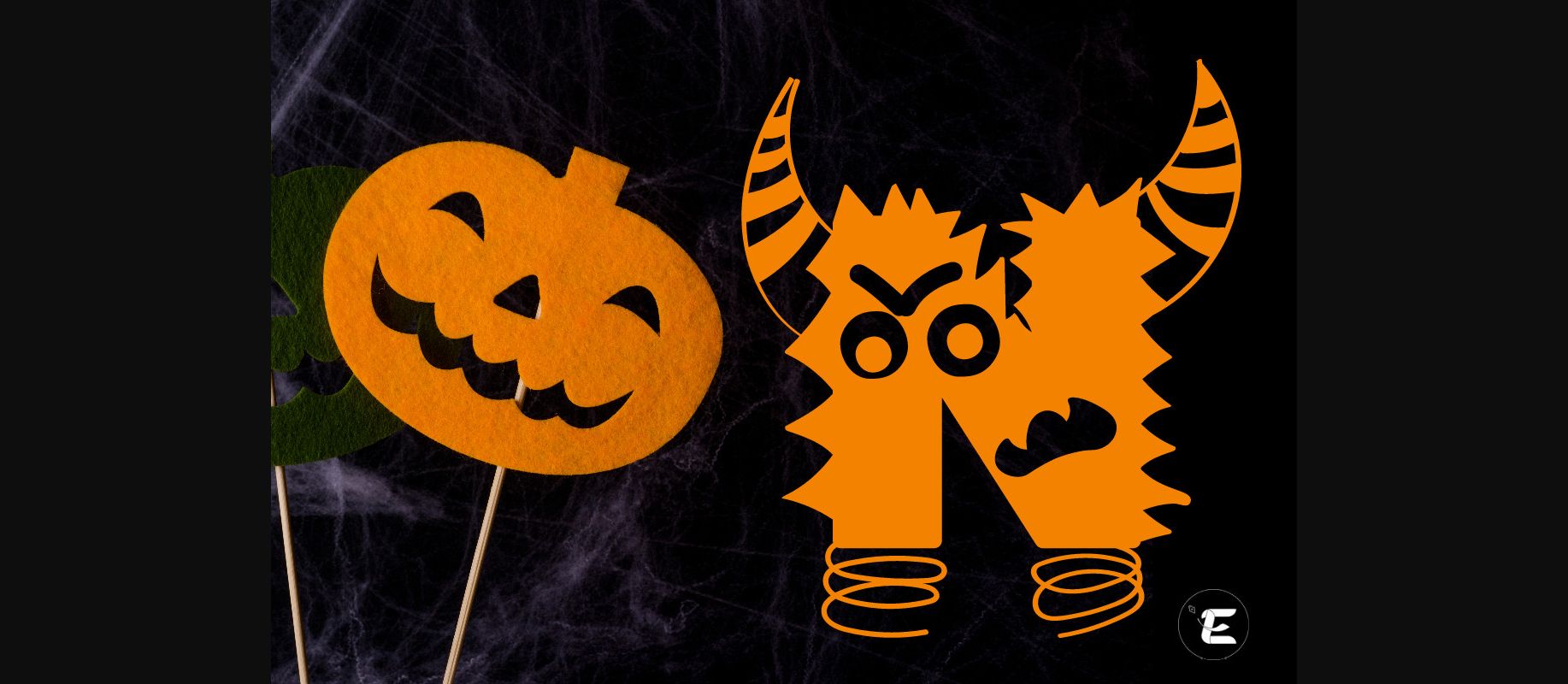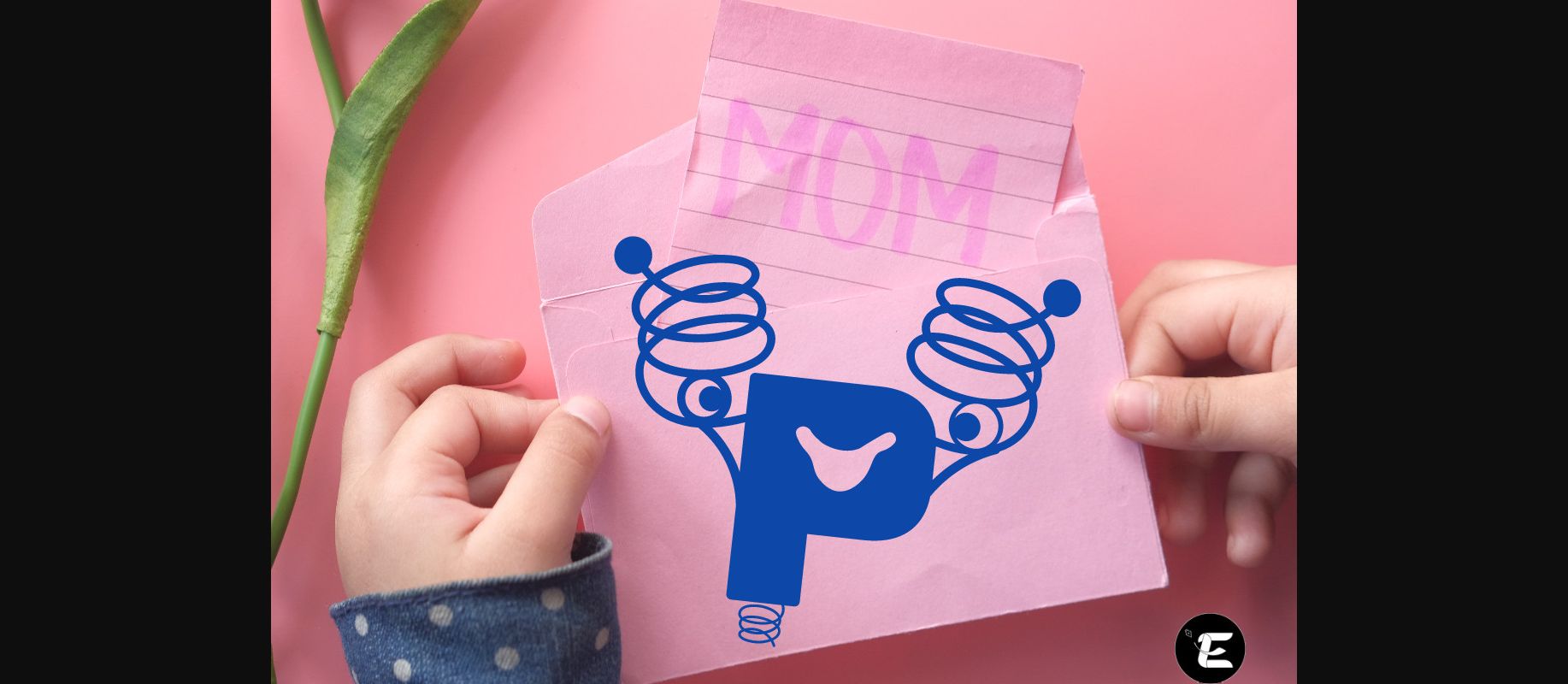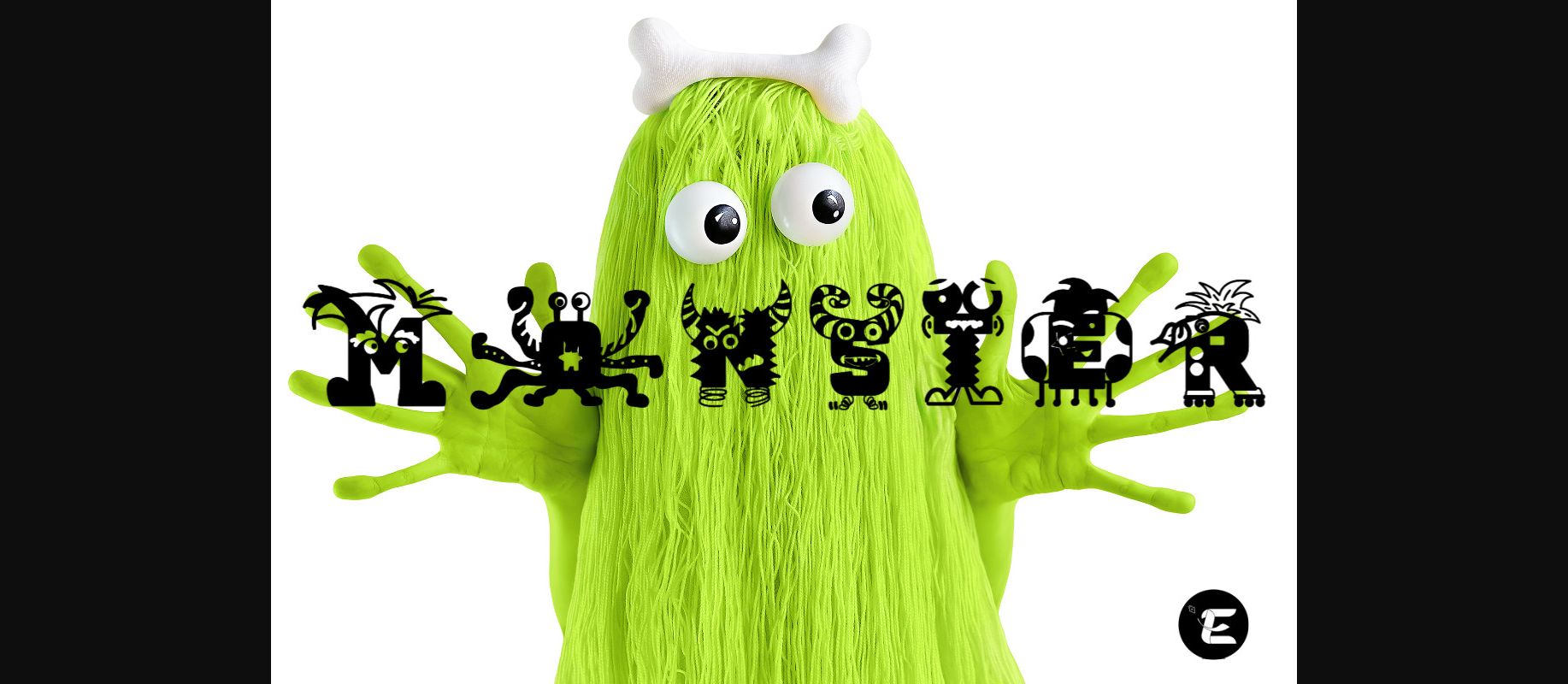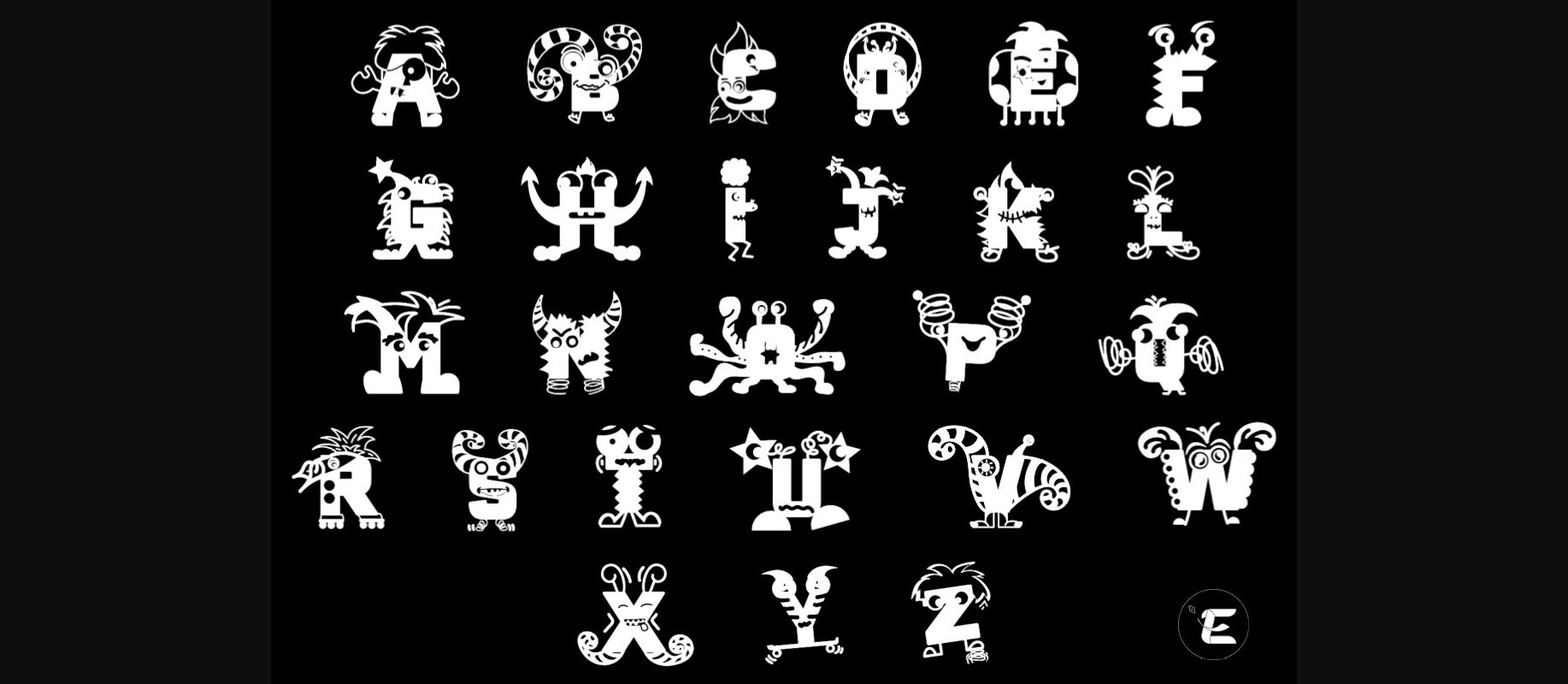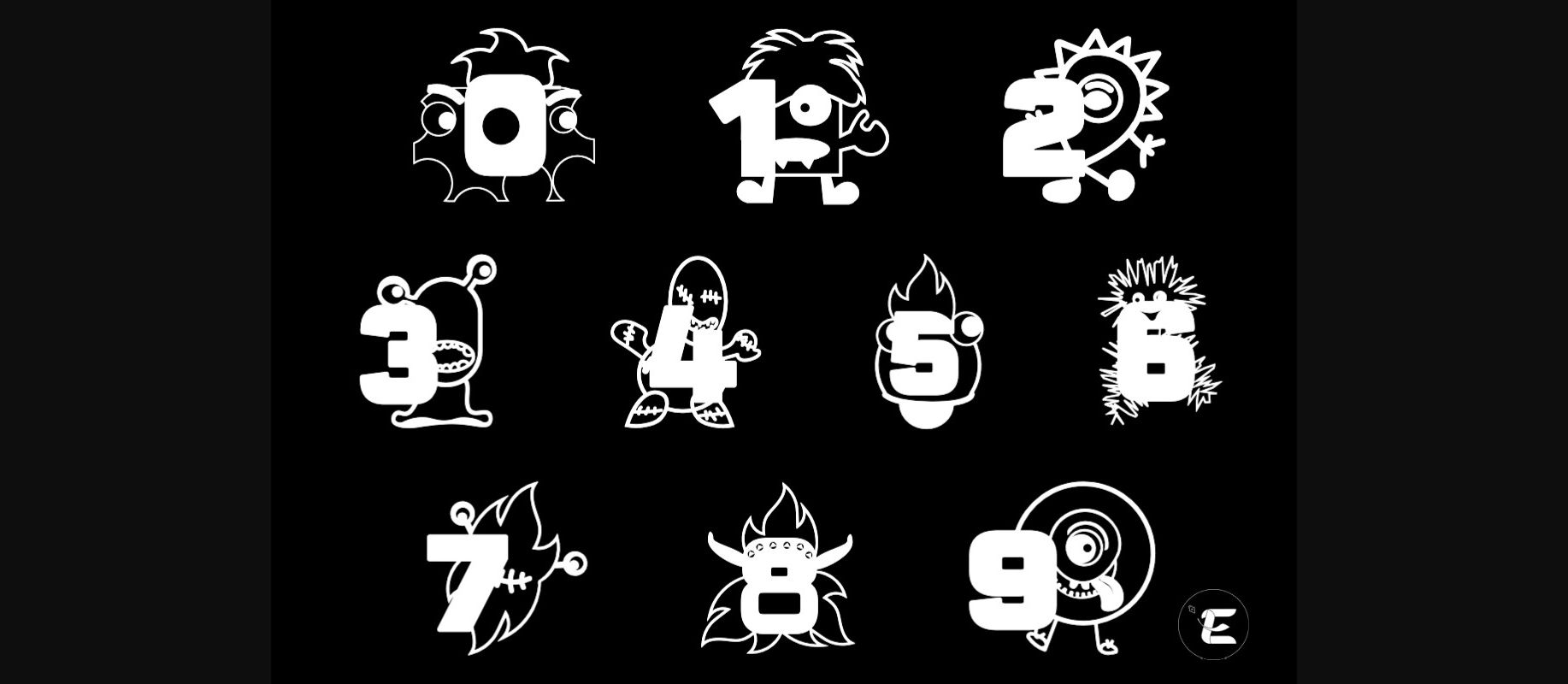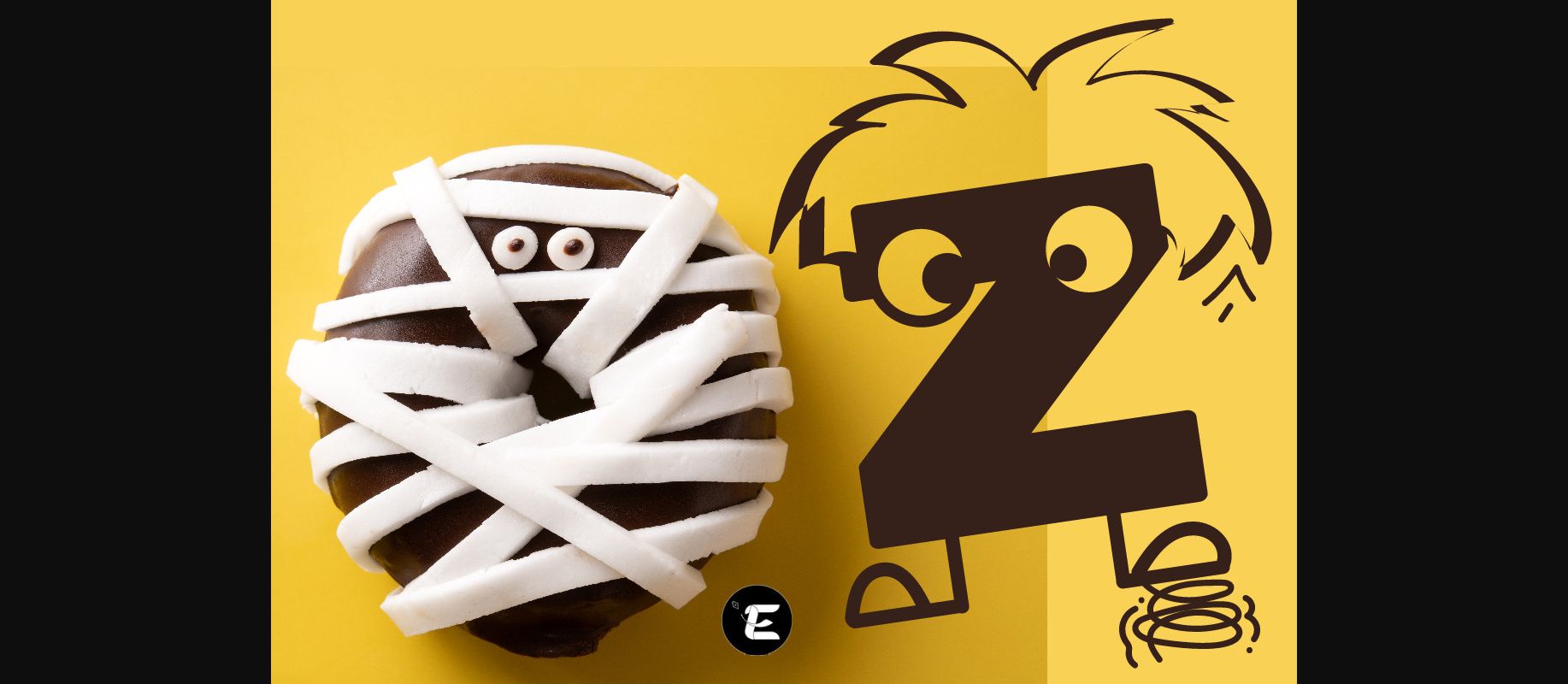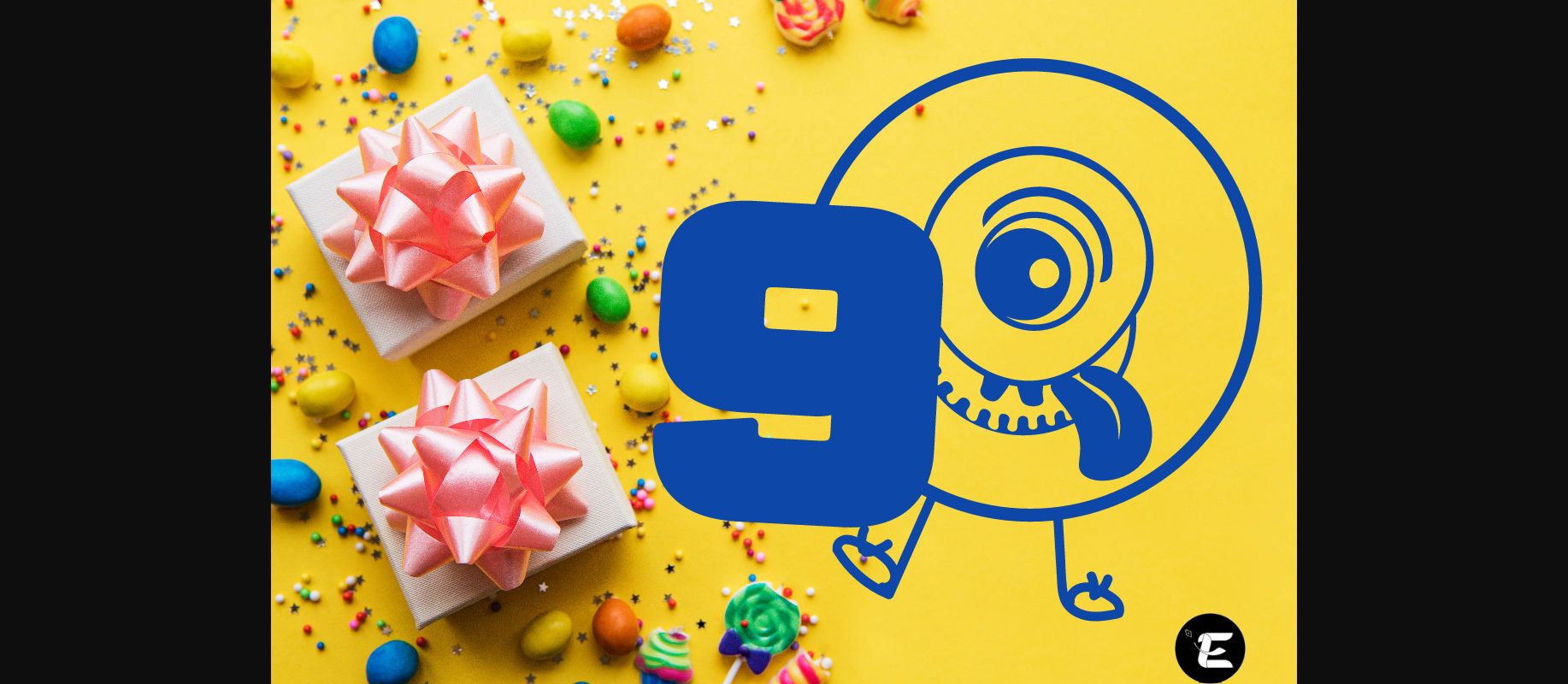
Monsters Font
About Monsters Font
Monsters is a cool and playful decorative font. Whether you use it for crafts, digital design, presentations, this font has the potential to become your favorite font for any occasion!
You can use it for Halloween, birthdays, and various other party ideas.